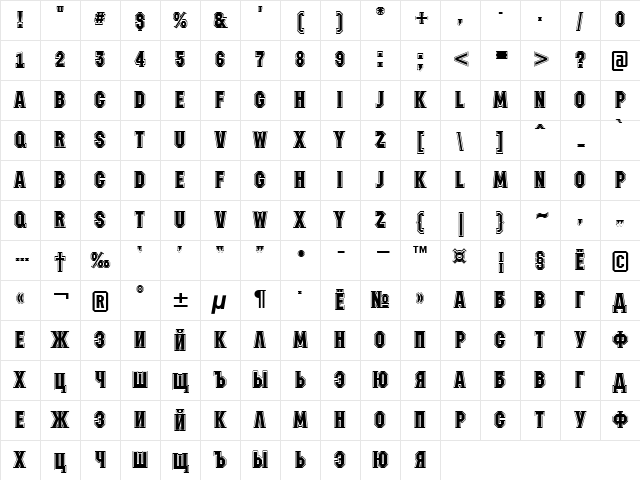
a_MachinaNovaGr Normal Free Font
a_MachinaNovaGr Normal
Design Context for a_MachinaNovaGr
a_MachinaNovaGr is a composed and adaptable typeface that performs quietly and consistently across a wide range of design contexts.
Pro Tip: Use a_MachinaNovaGr in both headline and body roles to test its range before committing to a single application.